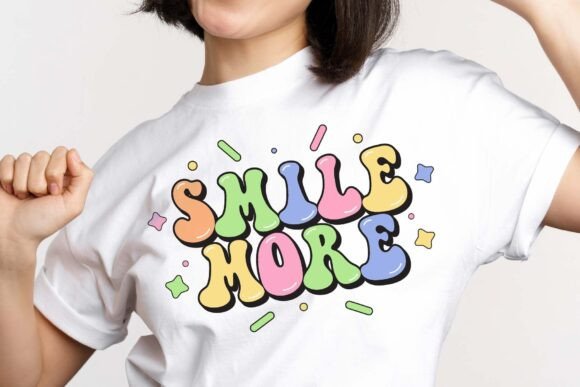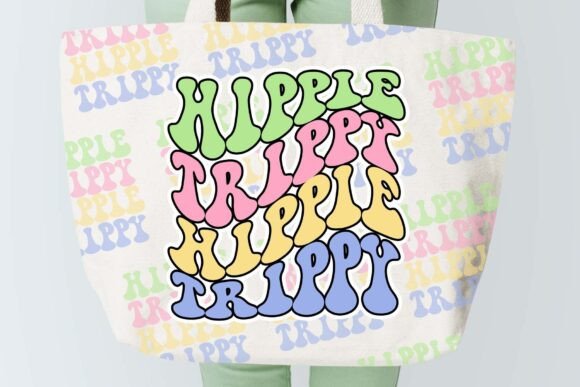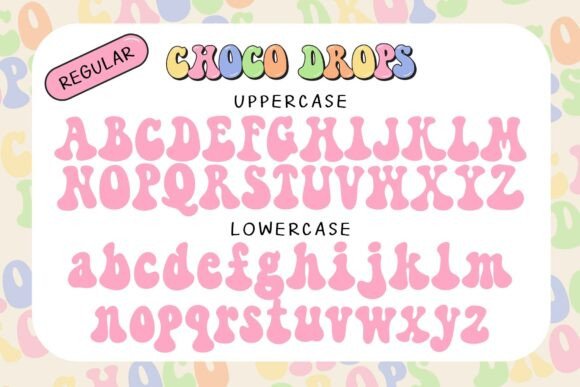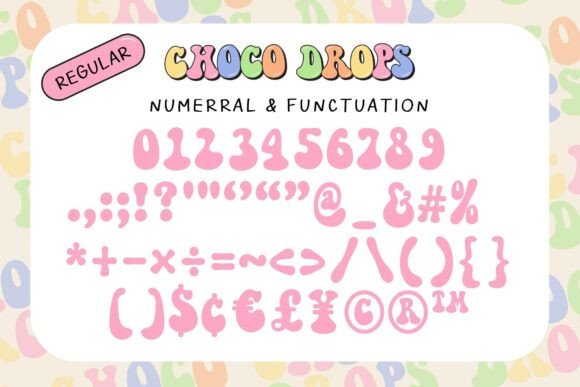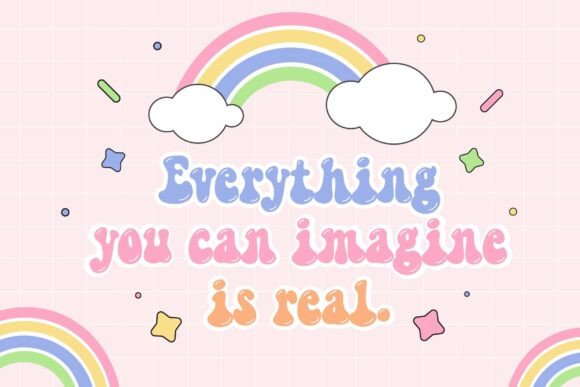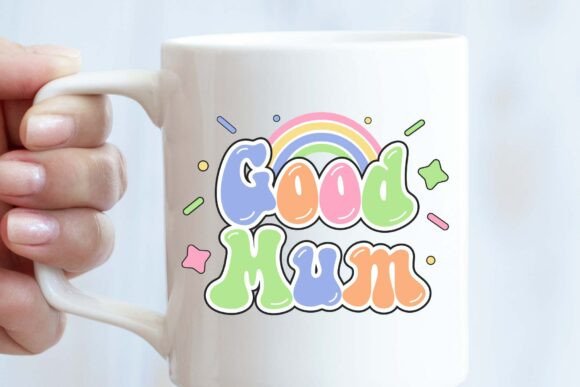
Introduction to Choco Drops Font
You know that moment when you’re brainstorming ideas for a creative project and suddenly, the perfect font pops into your mind? It’s like a spark of inspiration that sets your imagination ablaze. For designers, finding the right font can make all the difference between a mediocre design and a masterpiece. That’s where the Choco Drops Font comes in – a delightful, high-quality font that adds a touch of whimsy and fun to any project.
Whether you’re working on a graphic design, creating a digital art piece, or simply looking for a unique design resource, the Choco Drops Font is an ideal choice. Its transparent background and free download make it easy to incorporate into your creative projects. With its adorable, groovy vibe, this font is sure to bring a smile to your face and a pinch of magic to your designs.
Key Features of Choco Drops Font
- High-quality, hand-drawn design perfect for creative projects and design resources.
- Available in a transparent background option, allowing for seamless integration with any design.
- Designed to be highly legible and visually appealing, with a unique, playful style that’s perfect for creative projects.
- Features a high-resolution design, ensuring that it looks great in print and digital applications.
- Perfect for use in design projects, such as logos, branding, and typography-based designs, due to its unique and creative style.
Honest Review: Choco Drops Font
I recently stumbled upon the Choco Drops Font while searching for a unique design resource for a creative project. I was drawn to its playful and modern aesthetic, making it perfect for a variety of applications.
- ✨ High quality and clear typography: The font is well-designed, making it easy to read and use.
- ✨ Transparent background: The font’s transparent background makes it easy to overlay on images or other design elements.
- ⚠️ Limited character set: The font only includes a limited set of characters, which may not be suitable for all design projects.
- ⚠️ Not suitable for body text: While the font is great for headings and titles, it may not be the best choice for body text due to its playful nature.
Overall, I’m impressed with the Choco Drops Font. Its unique design and high quality make it a great addition to any design project. While it may have some limitations, it’s definitely worth checking out, especially for those looking for a free design resource.
Tips for Getting the Most Out of Choco Drops Font
Here are a few tips for getting the most out of the Choco Drops Font:
- Experiment with different font sizes and colors to create a unique and eye-catching design.
- Use the font with a transparent background to create a seamless and professional design.
- Combine the Choco Drops Font with other design elements, such as images and graphics, to create a visually appealing design.
Common Use Cases for Choco Drops Font
The Choco Drops Font is a versatile design resource that can be used in a variety of creative projects, including: